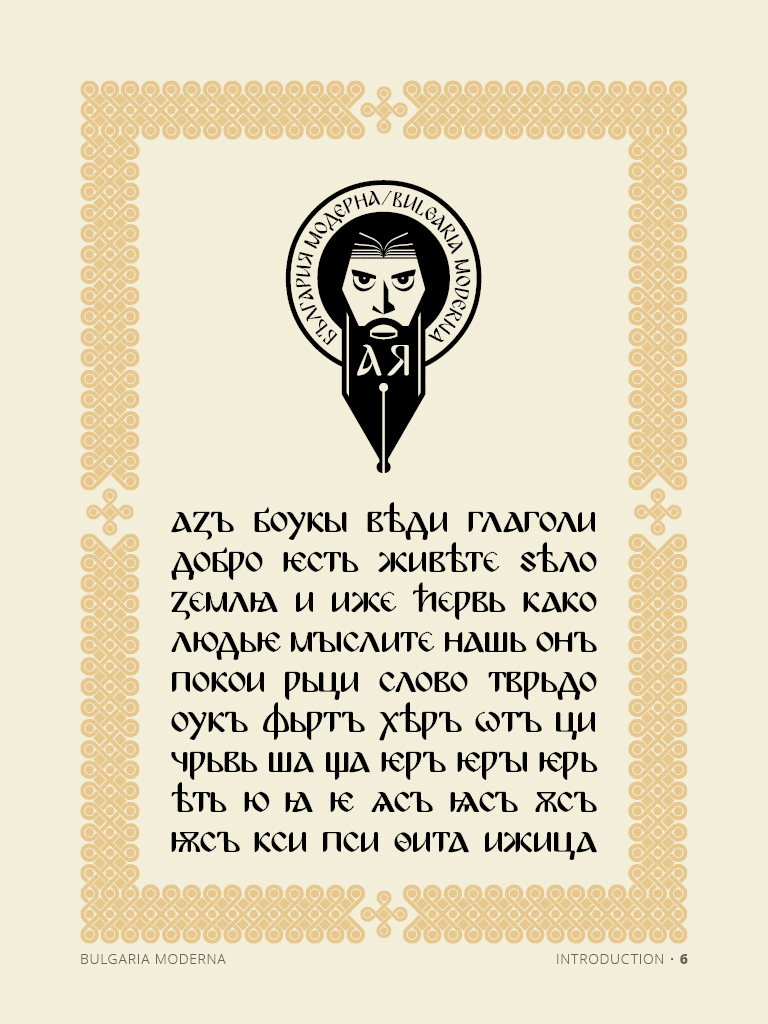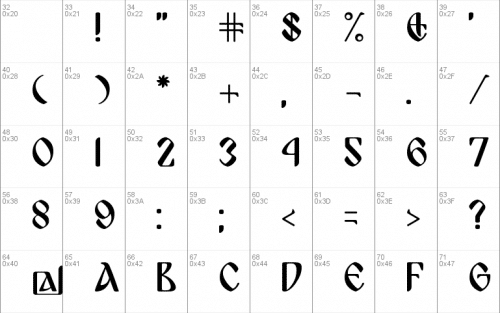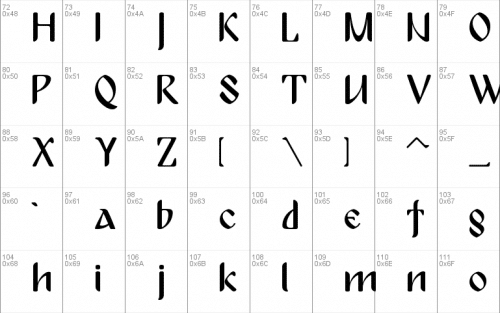
Small nations have a tendency to overestimate their contributions to humanity. Being a Bulgarian, I’ve heard countless stories extolling the uniqueness of my brethren, from petty (We invented yogurt!) to ludicrous (We were the first people in the Universe!). But there’s one thing we can be unabashedly proud of: We are among the few peoples who created their own script.
Granted, we named it after a Greek guy (Saint Cyril), and we made the mistake to open source it. Eventually the Russians borrowed it, didn’t give us proper credit, and this is why today the Cyrillic alphabet is known as Russian. This slightly pisses us off, but not too much. The mere fact that once upon a time our culture was so vibrant that it spilled its goods far and wide gives us self-esteem in times when, far too often, we feel peripheral and insignificant.
This font—my typographic debut—is an homage to the scholars at the Preslav Literary School, who created something that transcended borders and stood the test of time. I worked on it for more than two years, covering almost all alphabets supported in Unicode 6.1 (see the long list below). Currently, Bulgaria Moderna Pro consists of 1712 glyphs.
The font has been licensed multiple times and graces the covers of many wonderful books. Its letters were even carved on a monument. You can read more about its history here.